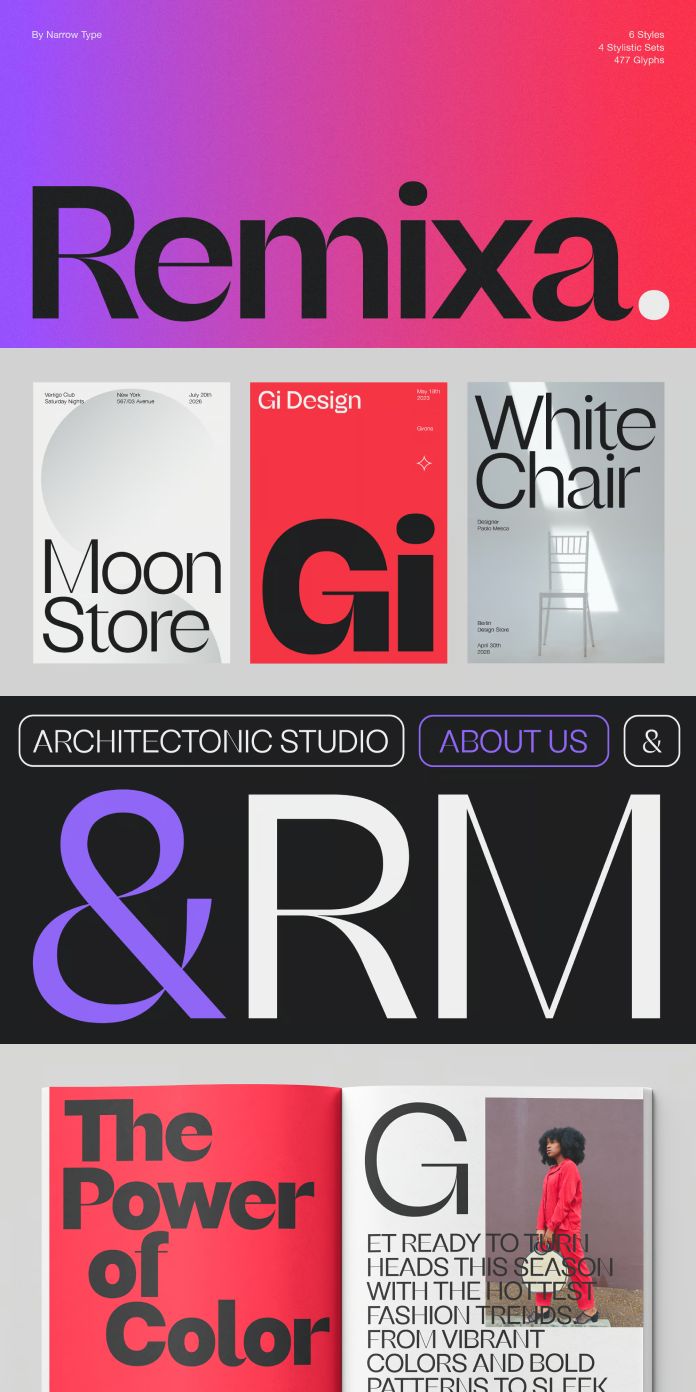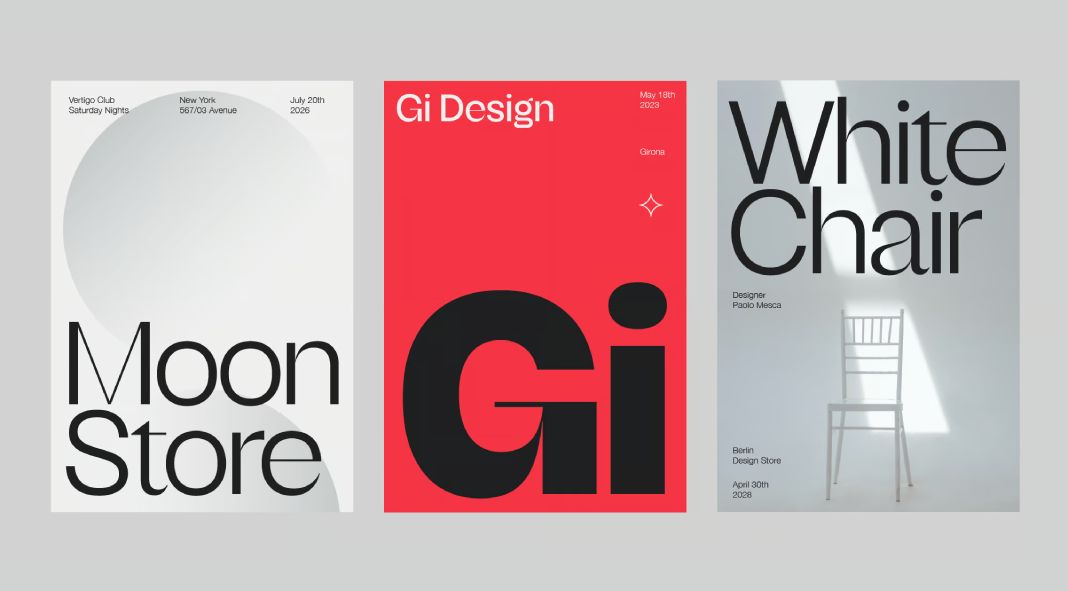
The Remixa font family is the best fusion of sans-serif and serif typography.
Innovation and creativity continue to push boundaries, breathing new life into the way we communicate visually. One such groundbreaking typeface that has captured the imagination of designers is Remixa. Created by the talented Andrej Sevcik of the renowned foundry Narrow Type, Remixa redefines the traditional boundaries of type design by seamlessly blending elements from both sans-serif and serif typefaces. This fusion results in a truly unique and captivating design that stands out in the realm of modern typography.
A Versatile Typeface for Modern Design: Remixa offers a carefully crafted set of six weights, ranging from light to bold. This versatility allows designers to effortlessly integrate it into a wide range of design projects. Whether you’re working on a minimalistic website, a striking poster, or a sleek corporate identity, Remixa’s weights ensure optimal legibility and visual impact. Each weight has been meticulously balanced, taking into account both form and function, allowing designers to create captivating and expressive compositions.
A Harmonious Blend of Clean Lines and Serif-Inspired Details: What sets Remixa apart is its ability to harmoniously blend clean lines with subtle serif-inspired details. The result is a typeface that exudes modernity and timeless elegance. The clean lines give Remixa a contemporary and minimalist feel, perfect for the demands of the digital age. Meanwhile, the delicate serif details add a touch of sophistication and refinement, creating a captivating visual balance. This fusion makes Remixa truly versatile, as it can seamlessly transition from digital media to printed pages.
Captivating Compositions Await: Remixa empowers designers to unleash their creativity and craft compositions that stand out from the crowd. Its unique design allows for endless possibilities, encouraging experimentation and pushing the boundaries of traditional typography. Whether used for headlines, body text, or even logos, Remixa captures attention and engages the viewer with its distinctive personality.
Enduring Appeal in Digital and Print Media: In an increasingly digital world, typography must adapt and thrive across various mediums. Remixa excels in both digital and print media, ensuring that its visual impact remains strong regardless of the platform. Its bold and legible forms shine on screens, while the subtle details come to life on the printed page. The adaptability of Remixa makes it an indispensable tool for designers seeking to create memorable and impactful visual experiences.
Remixa, the cutting-edge modern sans-serif typeface designed by Andrej Sevcik of Narrow Type, offers designers a truly unique and captivating visual language. With its fusion of sans-serif and serif elements, carefully balanced weights, and harmonious blend of clean lines and subtle details, Remixa empowers designers to create captivating and expressive compositions. This versatile typeface seamlessly transitions between digital and print media, ensuring its enduring appeal in an ever-evolving design landscape. Experience the essence of modernity and timeless elegance with Remixa, and unlock a new world of typographic possibilities.